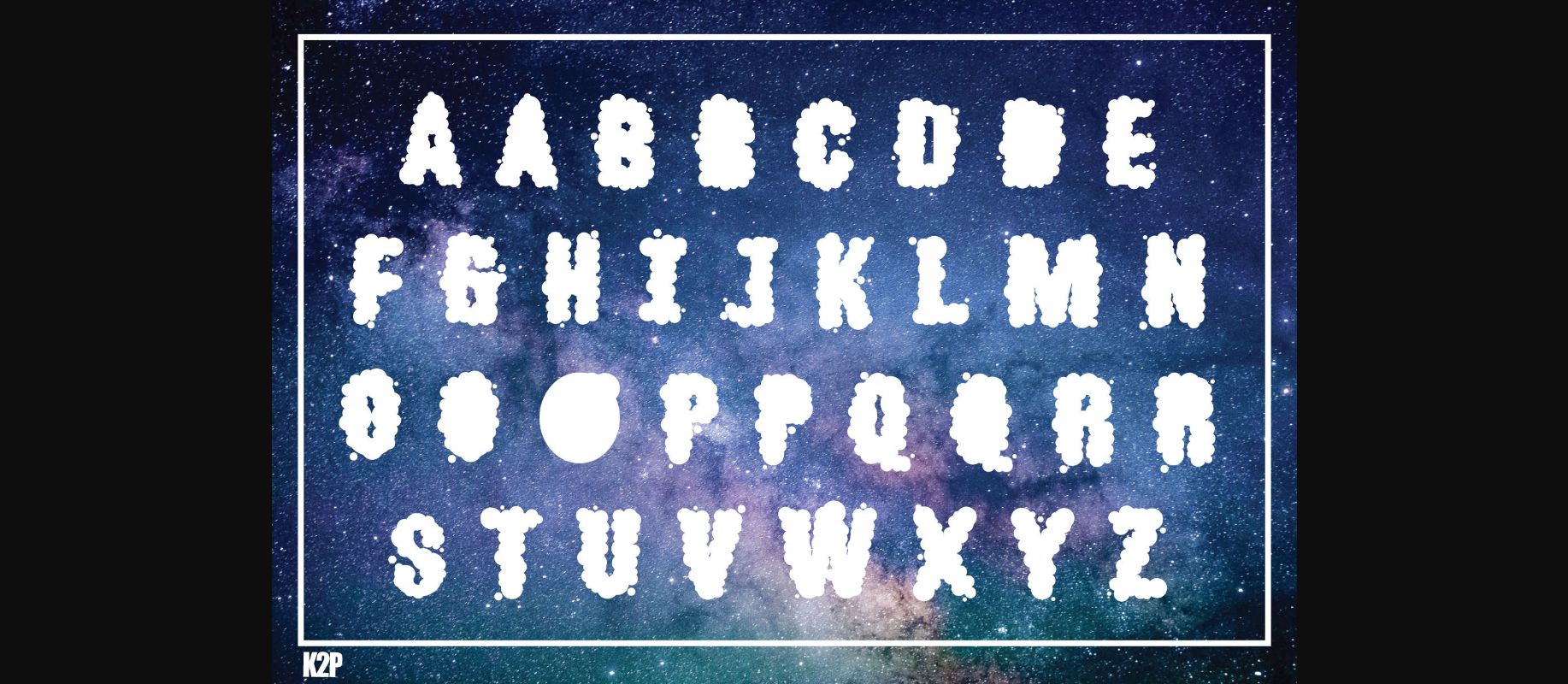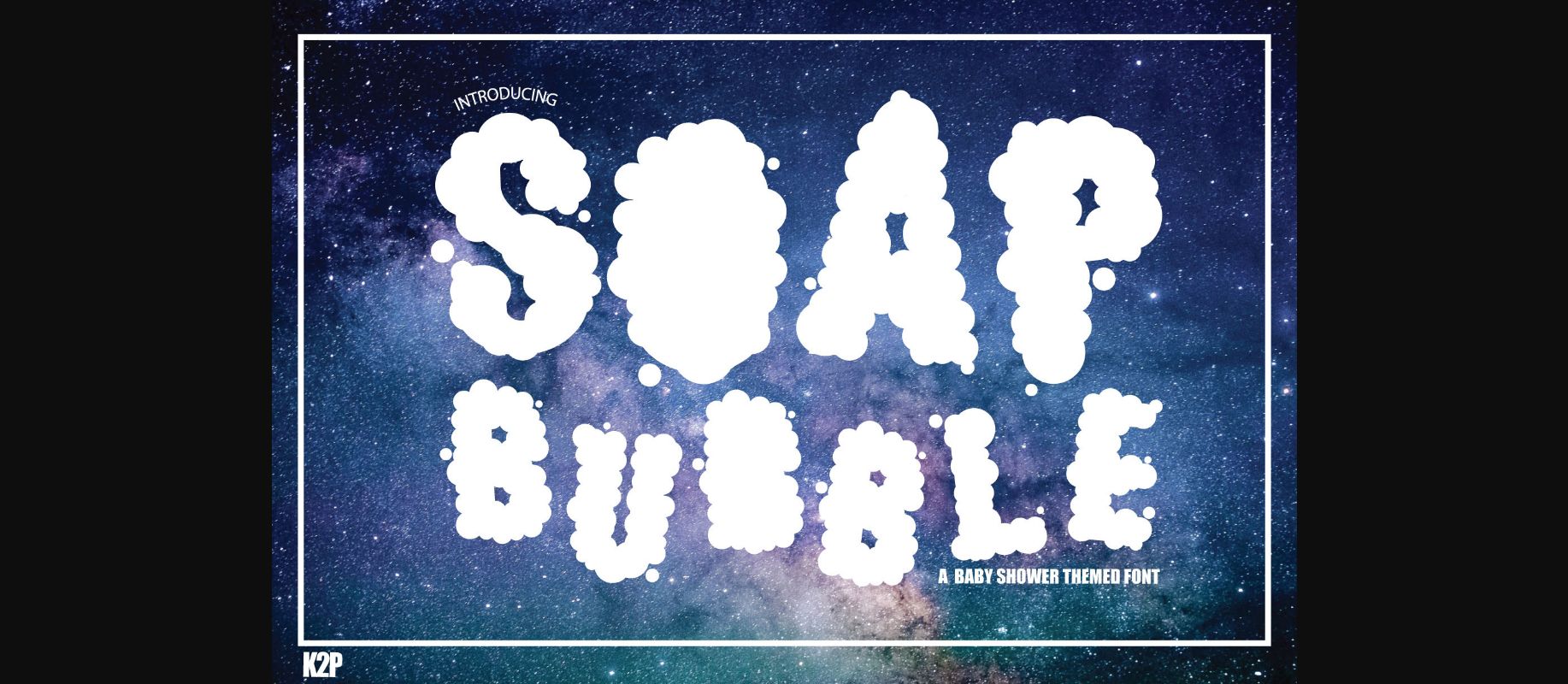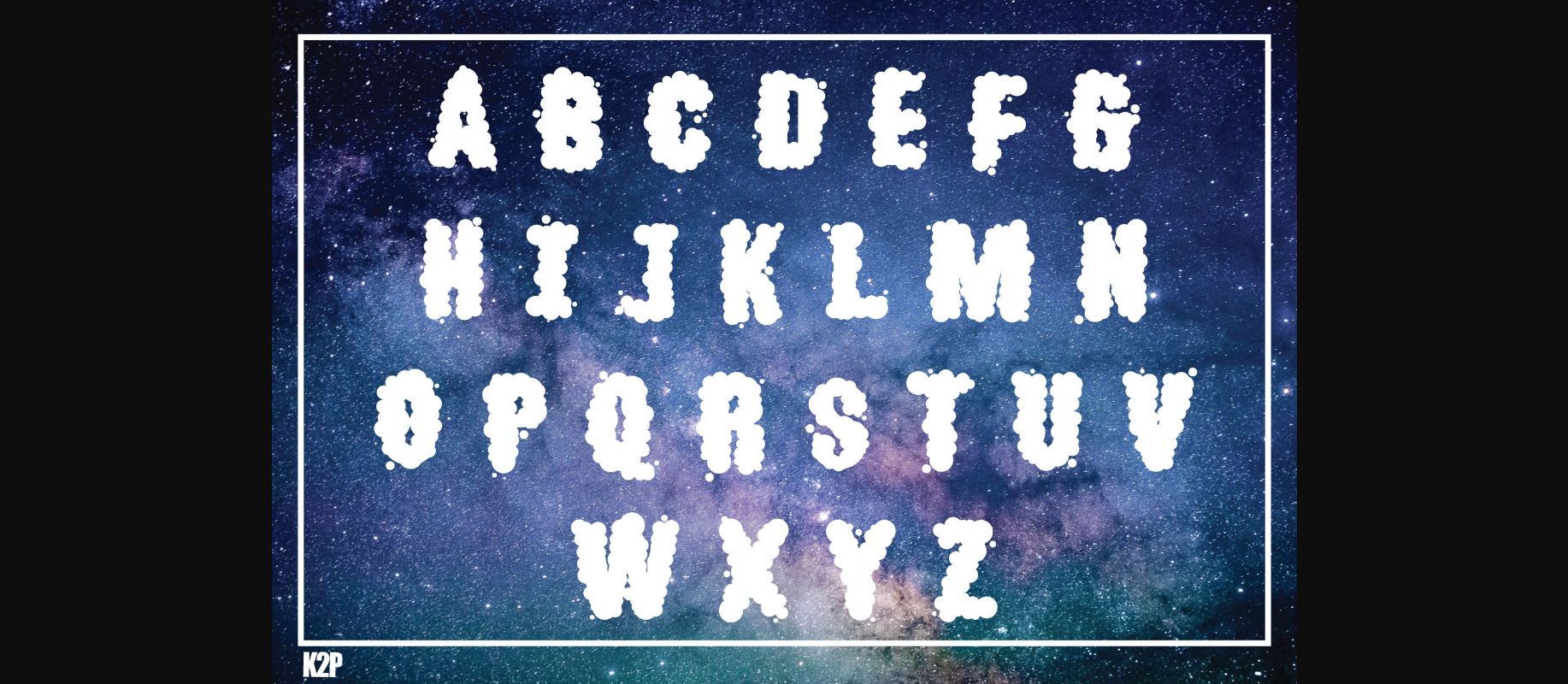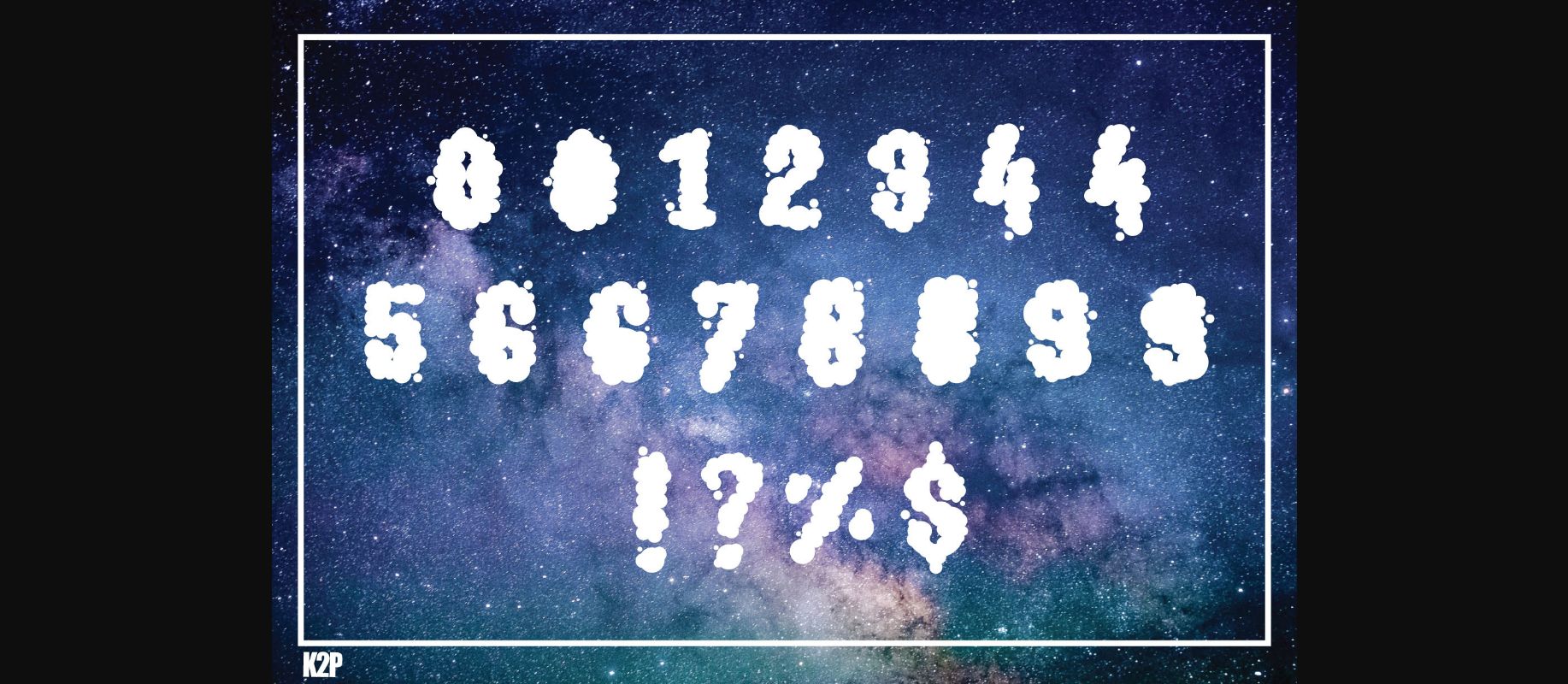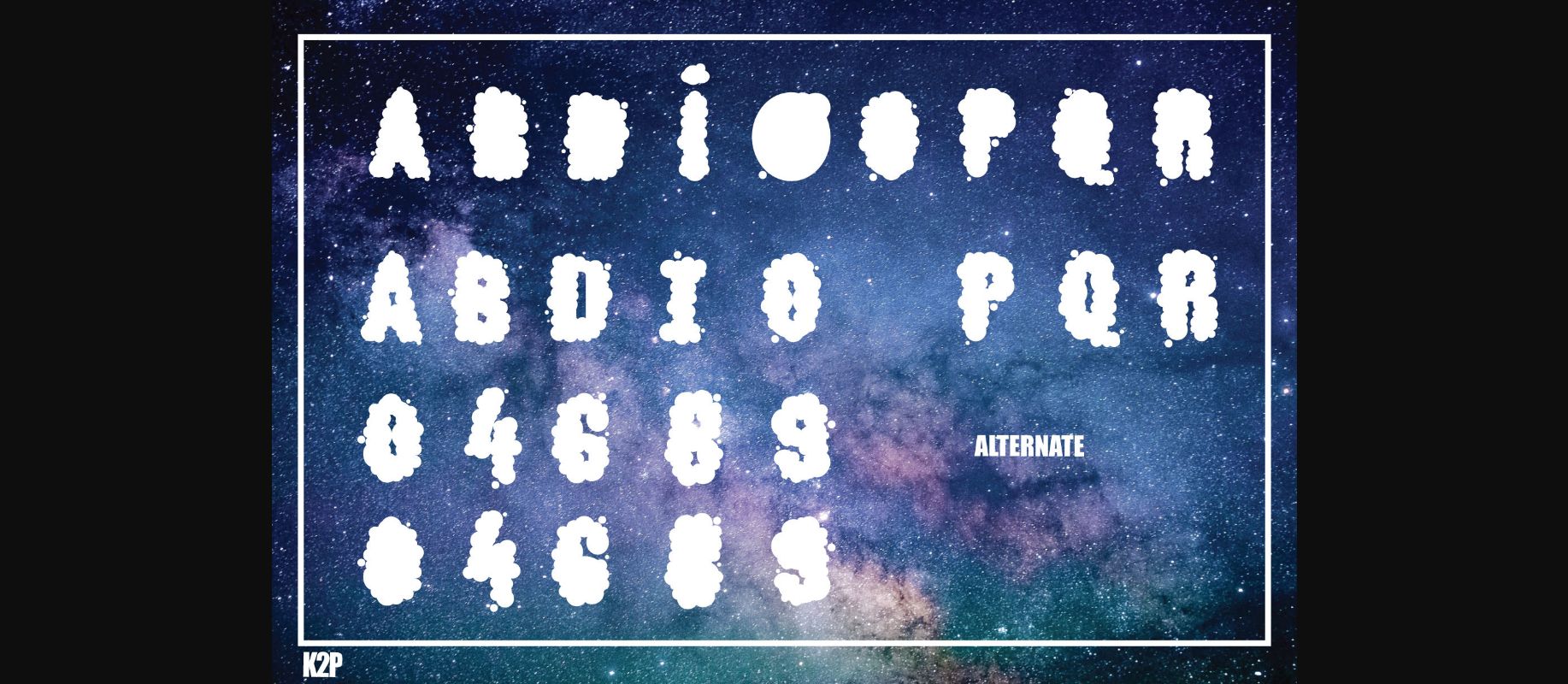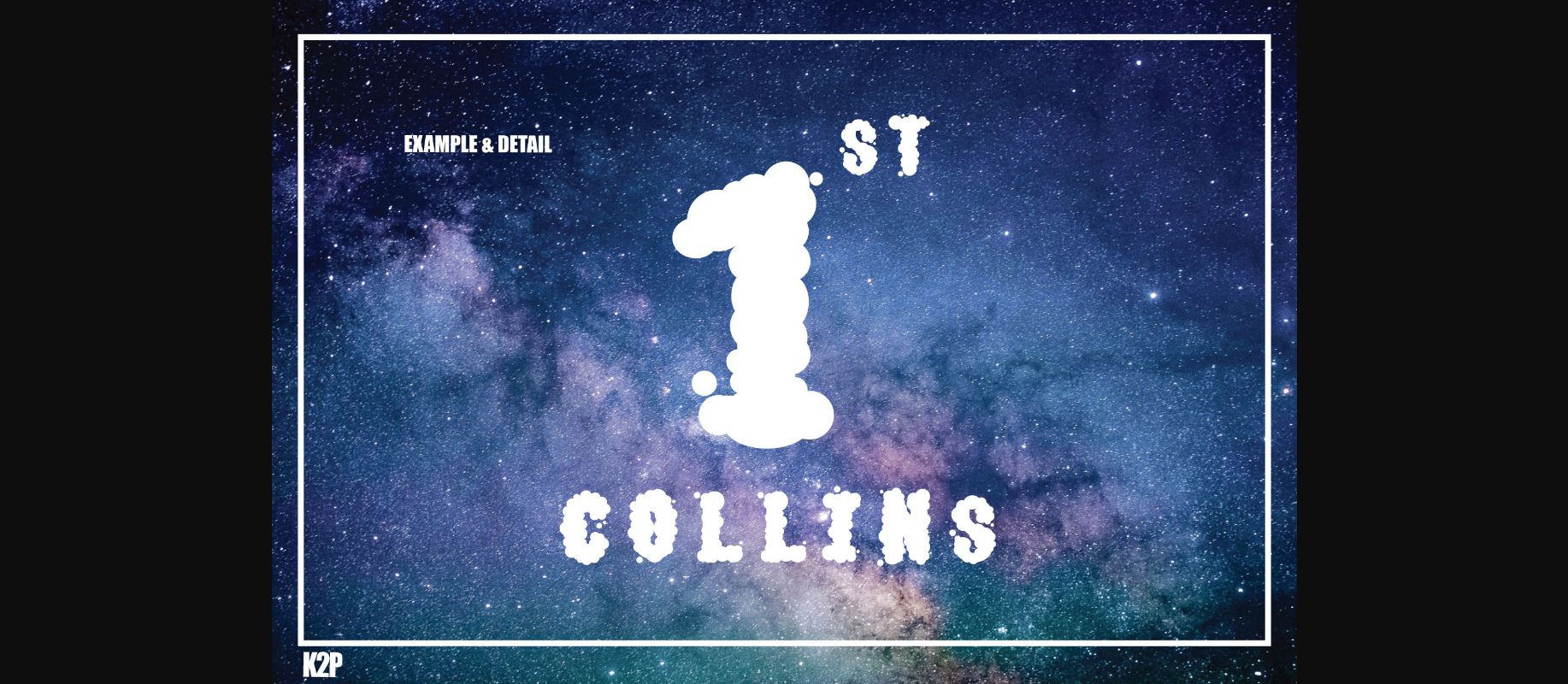
Soap Bubble Font
About Soap Bubble Font
Soap Bubble is a thick lettered and fun-looking decorative font. It is perfect for children-themed designs, especially when combined with bright colors. Soap Bubble is PUA encoded which means you can access all of the glyphs and swashes with ease!